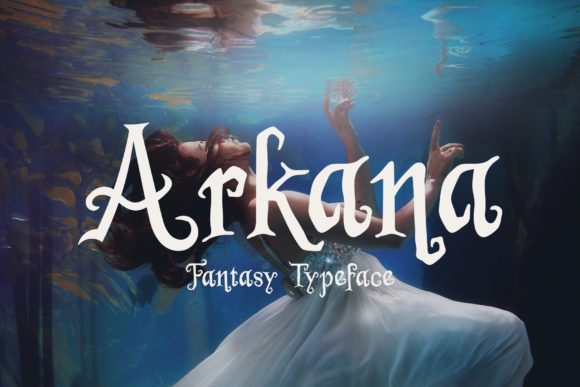
Journey into the realm of captivating design with Arkana Font, a display font crafted to ignite your creativity and leave a lasting impression. This whimsical and enchanting font is the perfect choice for designers seeking to add a touch of magic to their projects.
With its playful and expressive characters, Arkana Font will elevate your designs to new heights. Whether you're creating logos, posters, or any other visual masterpiece, this font will add a unique charm and personality that's sure to captivate your audience.
Imagine your brand logo adorned with the enchanting curves and elegant lines of Arkana Font. Its distinctive style will make your brand stand out from the crowd, creating a visual identity that resonates with your customers and leaves a lasting impression.
Dive into the world of Arkana Font and discover a treasure trove of creative possibilities. Its versatility knows no bounds, adapting seamlessly to any project that requires a touch of whimsy and delight. From children's games to cartoon-inspired designs, this font will add a dash of magic and charm that will leave your audience spellbound.
Don't settle for ordinary fonts that blend into the background. Embrace the extraordinary with Arkana Font and unleash your creativity. Let your designs shine with a captivating allure that speaks volumes and leaves an unforgettable mark on your audience.
Embrace the power of Arkana Font and unlock a world of creative possibilities. Its enchanting charm and captivating style will transform your designs into works of art that resonate with your audience and leave them in awe.